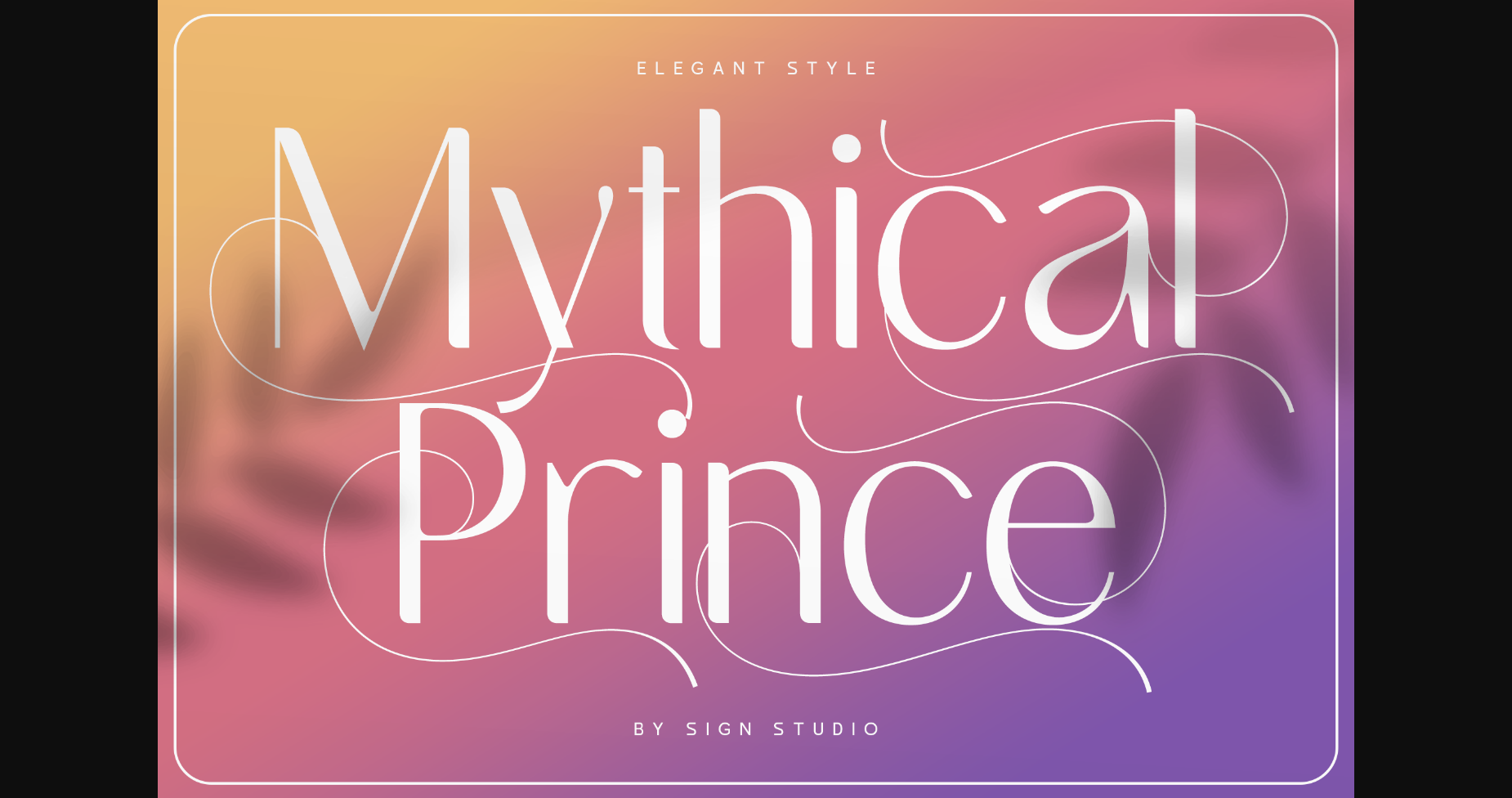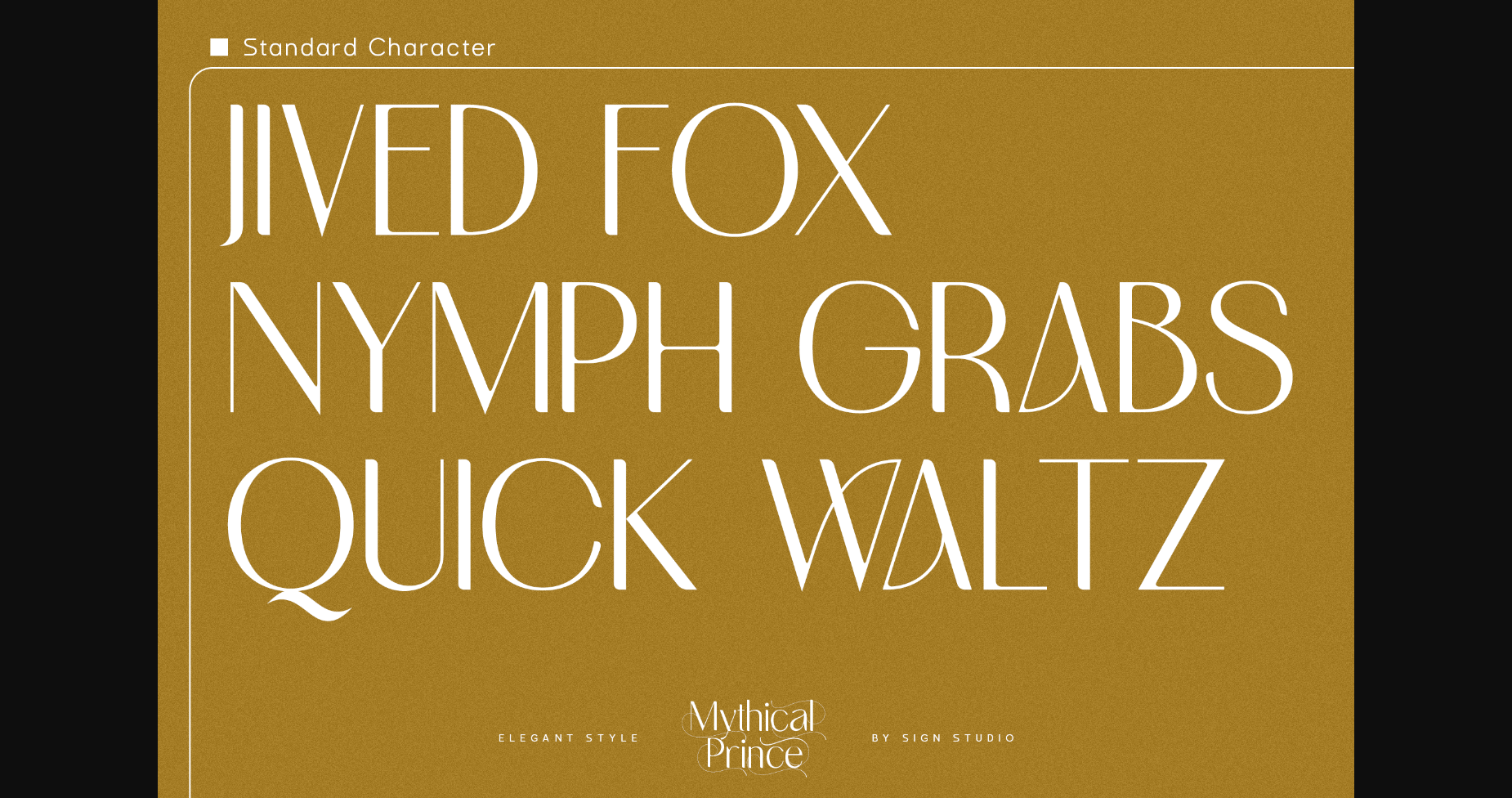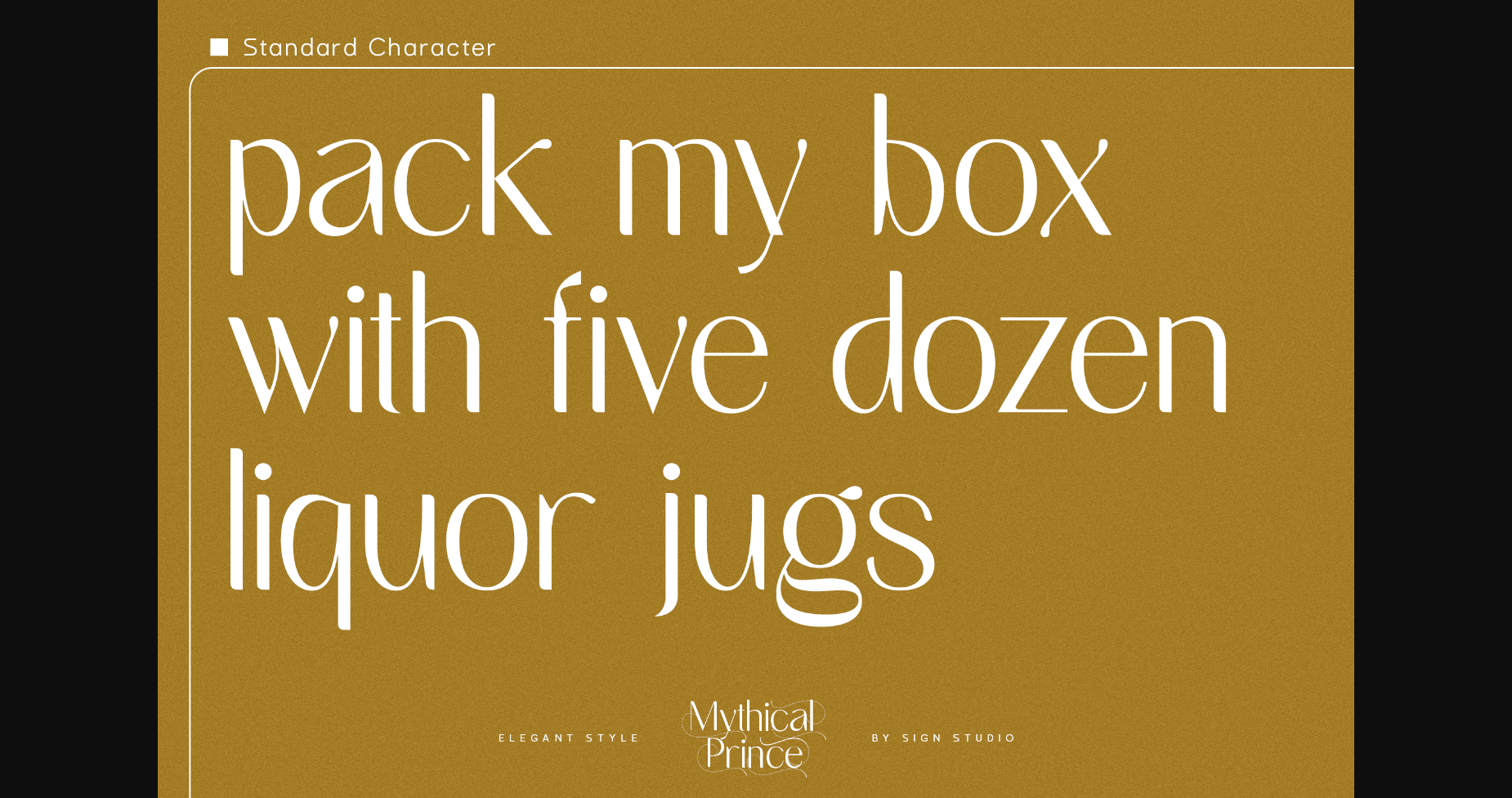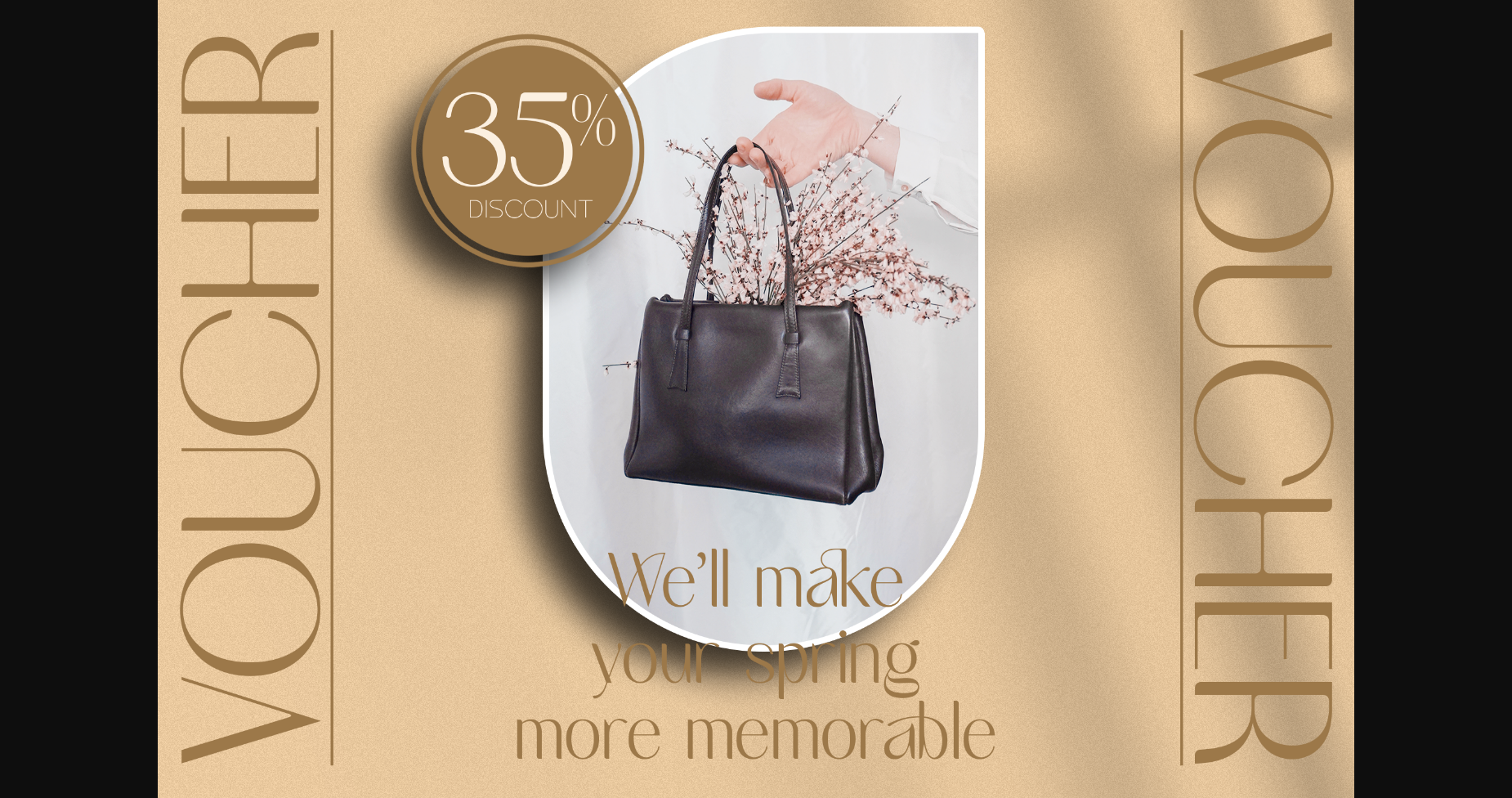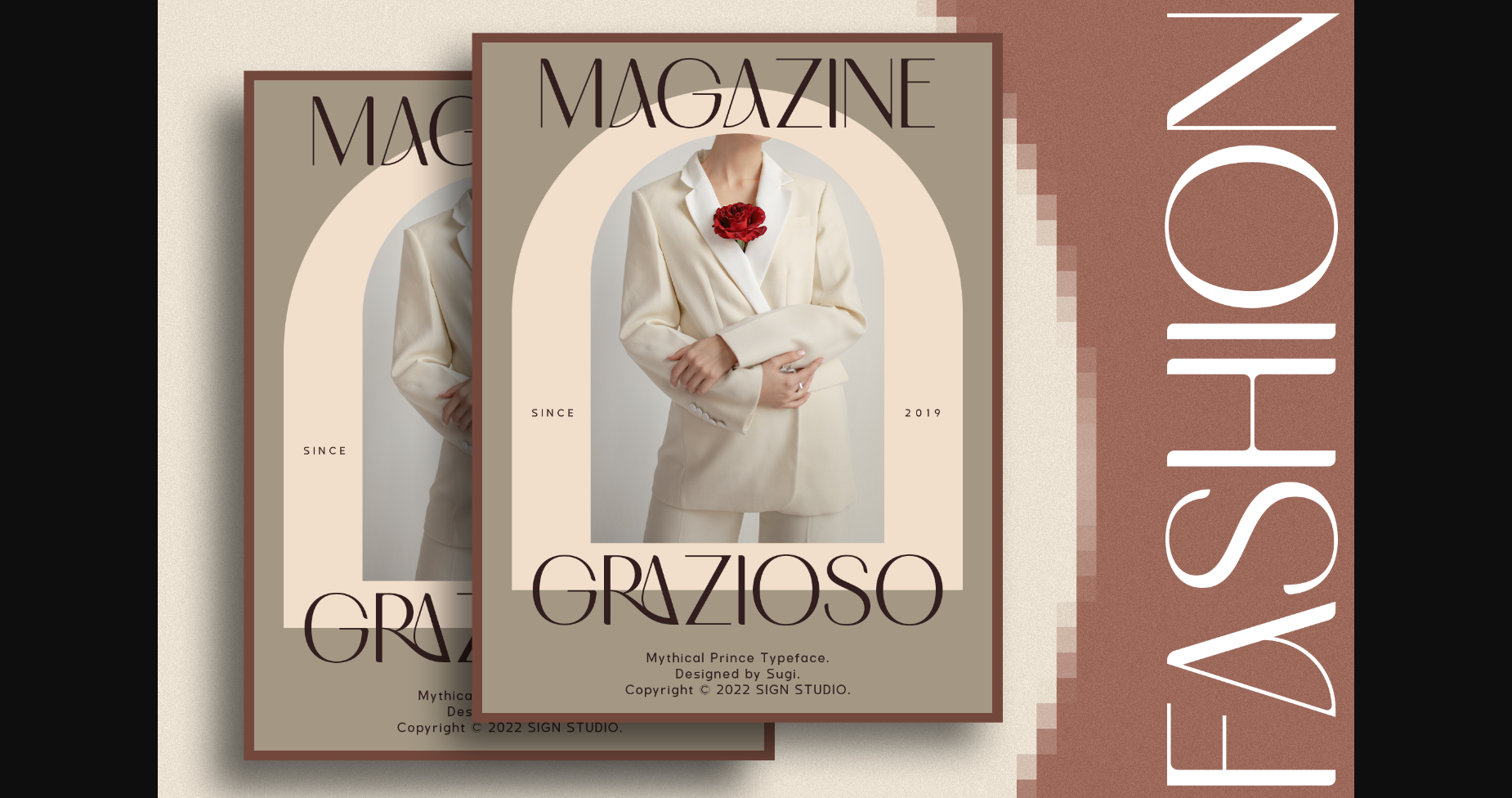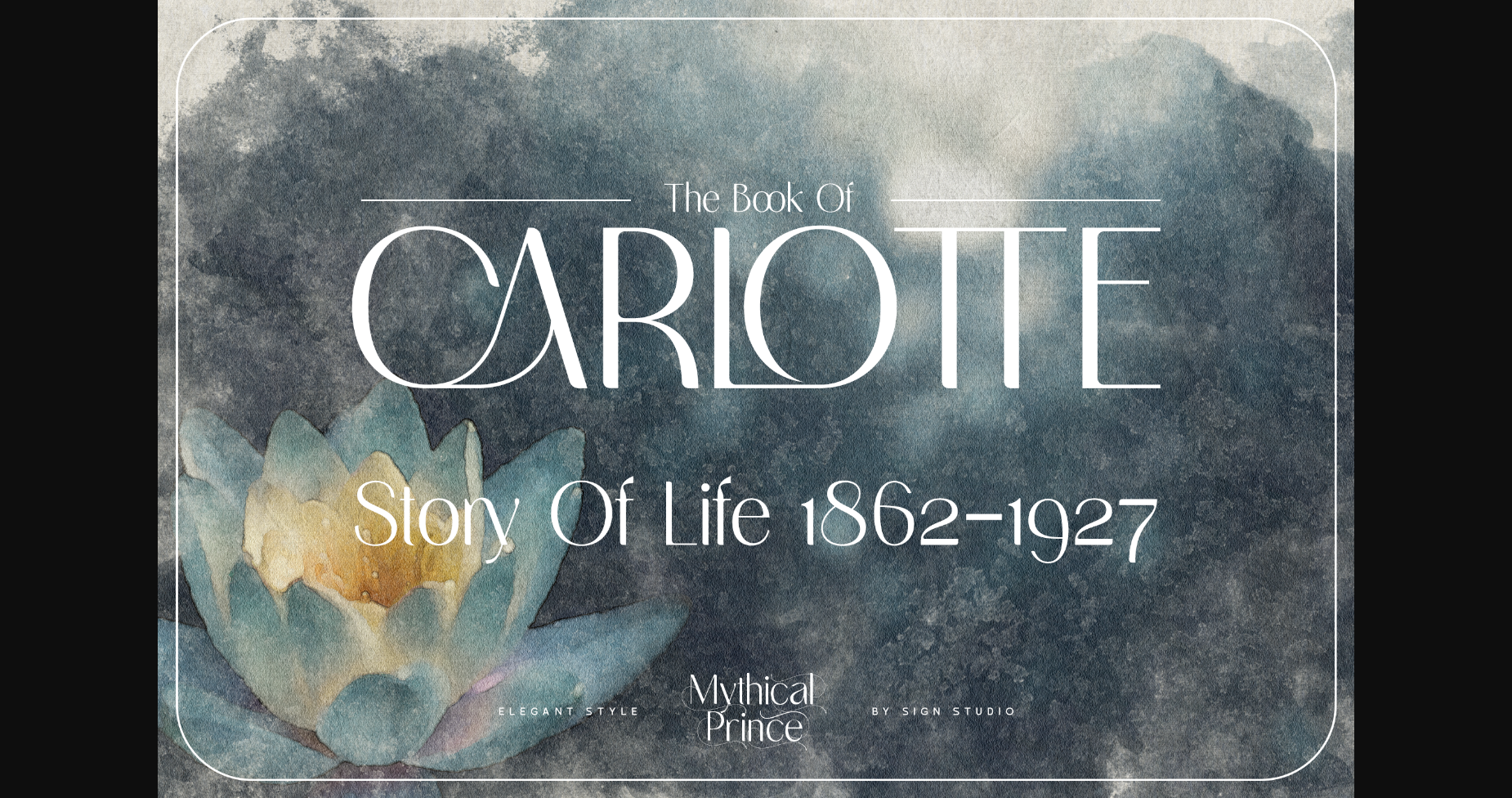
About Mythical Prince Font
Mythical Prince is a beautiful and smooth sans serif font created by a romantic and lovely look. It is perfect for greeting cards, wedding invitations, posters, logotypes, product branding, and much more.